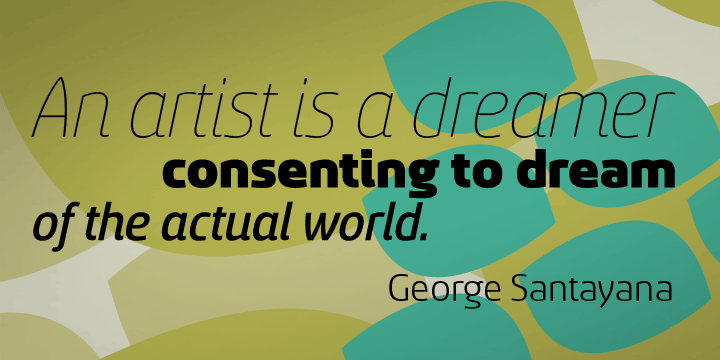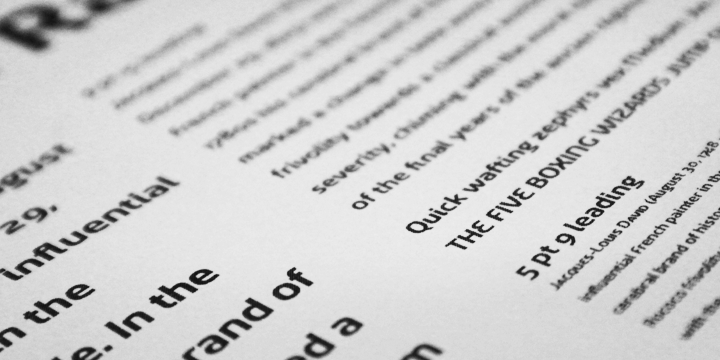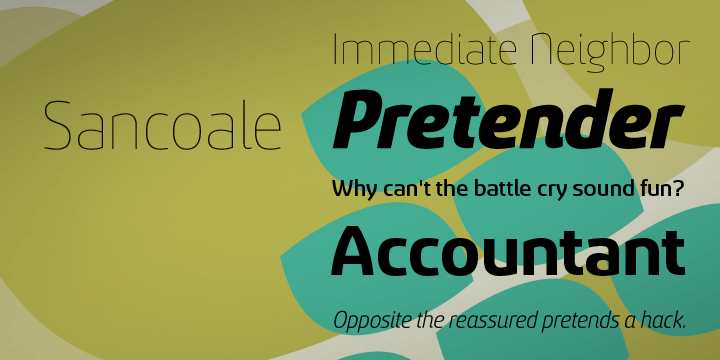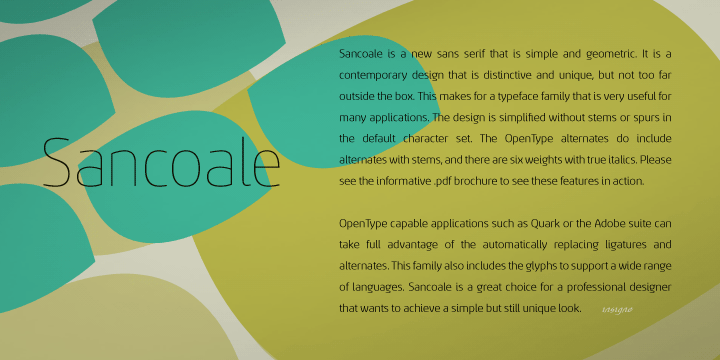
Sancoale Font Family
Sancoale is a new sans serif that is simple and geometric. It is a contemporary design that is distinctive and unique, but not too far outside the box. This makes for a typeface family that is very useful for many applications.
The design is simplified without stems or spurs in the default character set. The OpenType alternates do include alternates with stems, and there are six weights with true italics. Please see the informative .pdf brochure to see these features in action.
• Designers: Jeremy Dooley